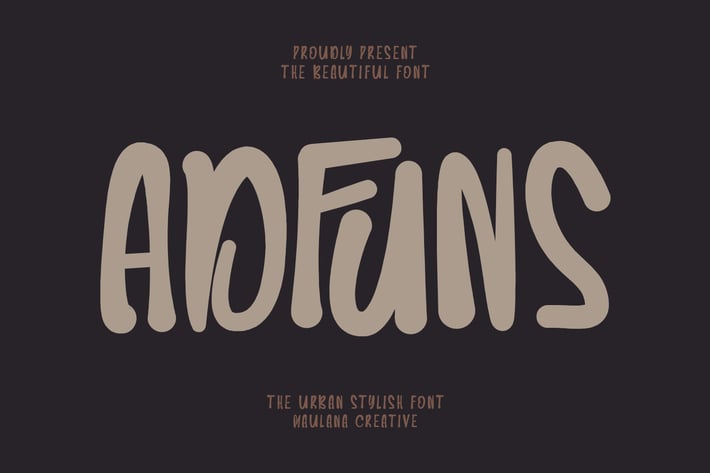
Adfuns Urban Stylish Font
Adfuns urban stylish display typeface. With vintage stroke, fun character with a ligatures and alternates. To give you an extra creative work. Adfuns support multilingual language. This font is good for logo design, Social media, Movie Titles, Books Titles, a short text even a long text letter and good for your secondary text font with script or serif. Make a stunning work with Adfuns urban stylish display typeface.